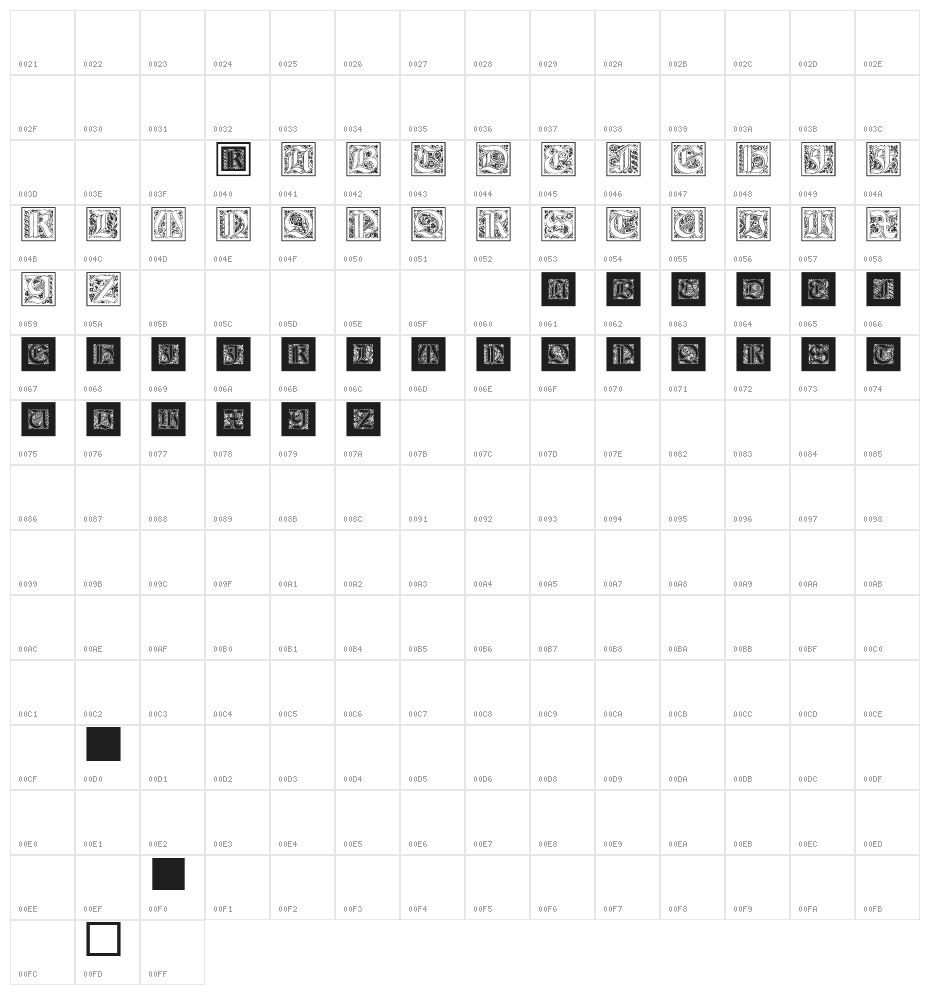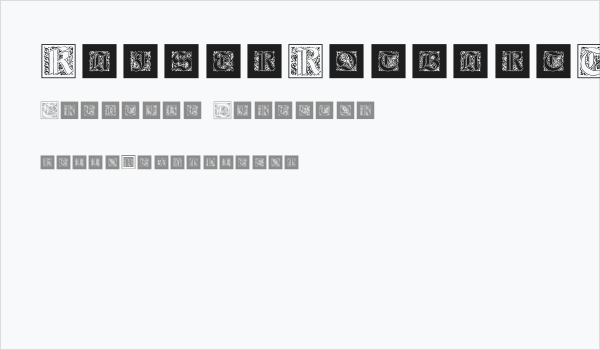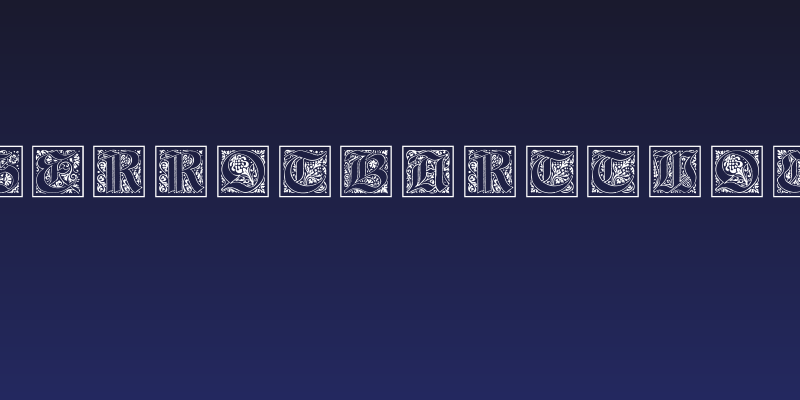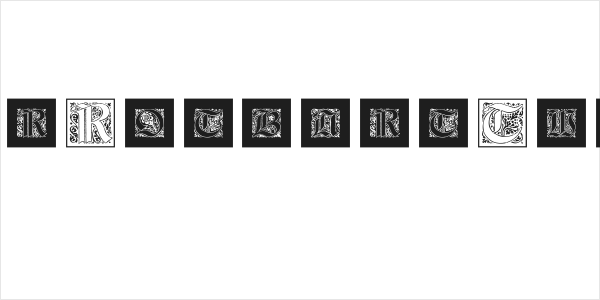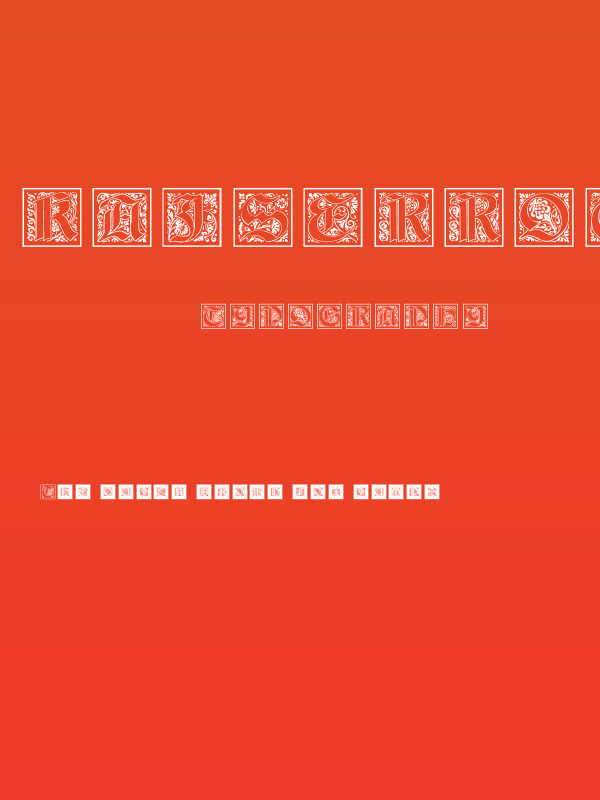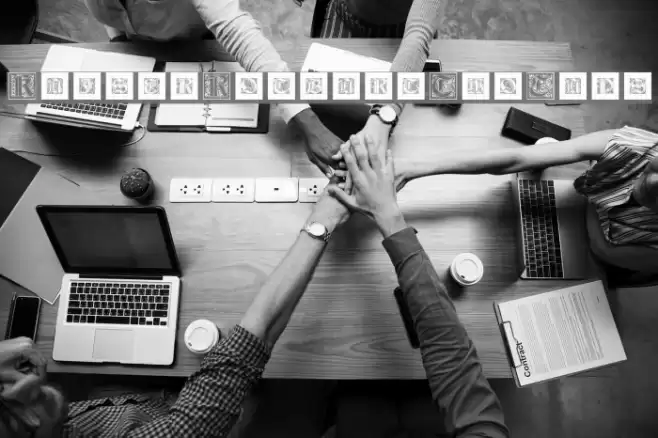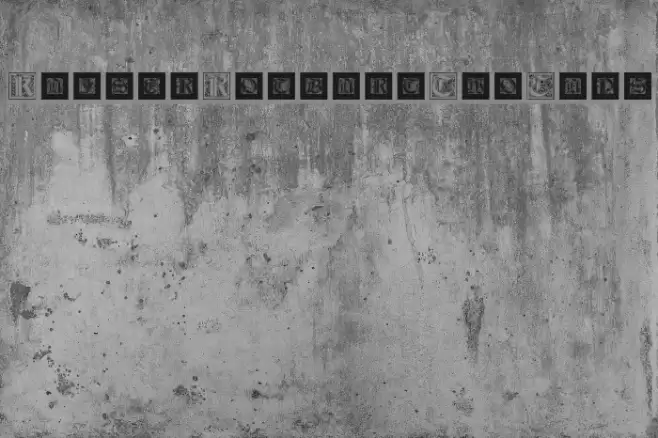
KaiserRotbartTwoCaps Font
KaiserRotbartTwoCaps Description
This font features an ornate and decorative style, with each letter enclosed in a square frame. The intricate detailing within each character suggests a vintage or historical aesthetic, reminiscent of medieval or renaissance manuscripts. The embellishments include floral and vine-like patterns, giving the font a rich and elaborate appearance. The high level of detail makes it suitable for decorative purposes where a touch of elegance and sophistication is desired. Each letter is distinct, with unique embellishments that add to the overall artistic feel of the font.
| Overall Style | Vintage |
| Use Case | Logos, Headlines, Decorative elements |
| Proposed Projects | Ideal for use in historical-themed projects, invitations, book covers, or any design requiring a touch of elegance and sophistication. |